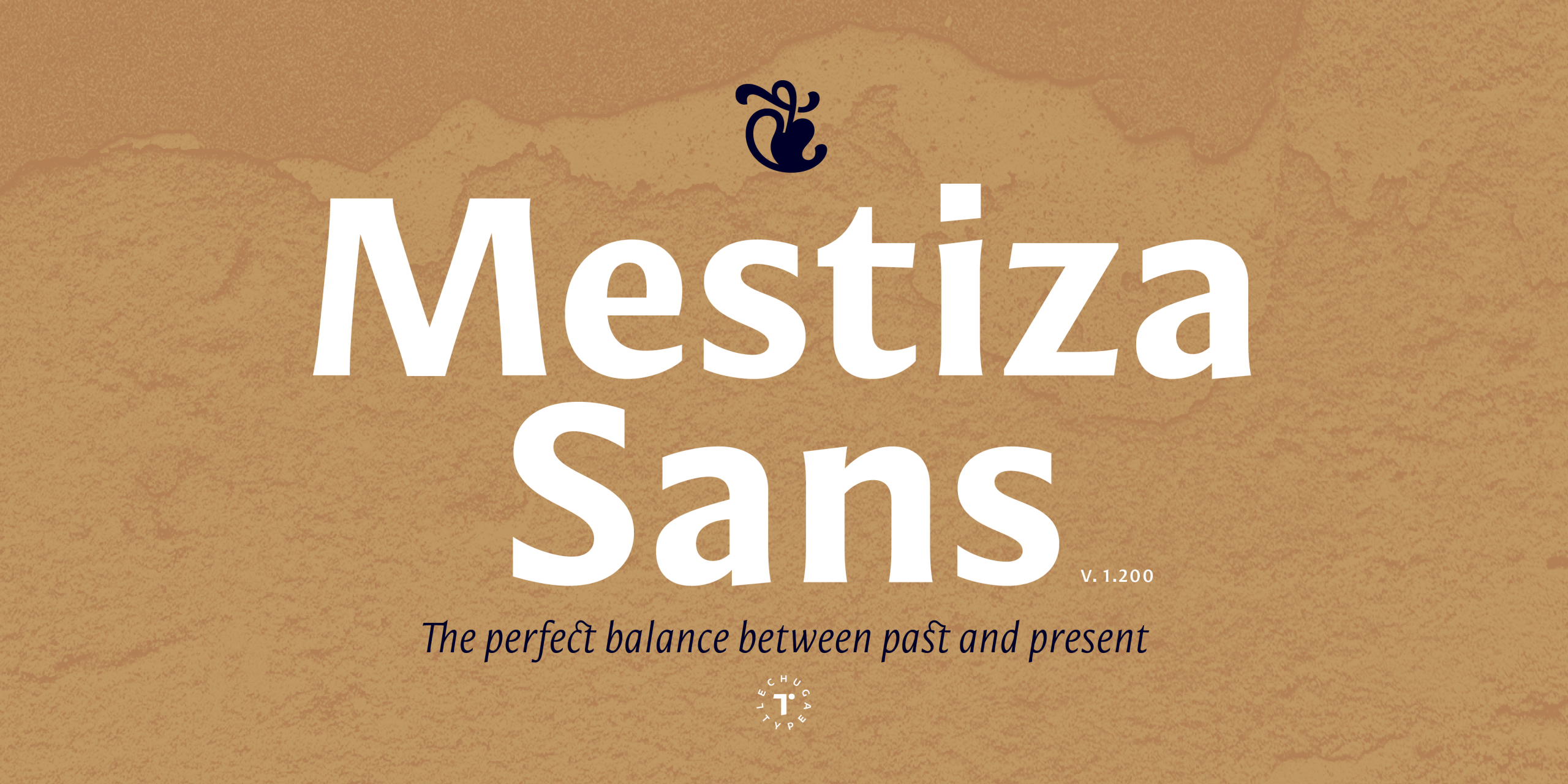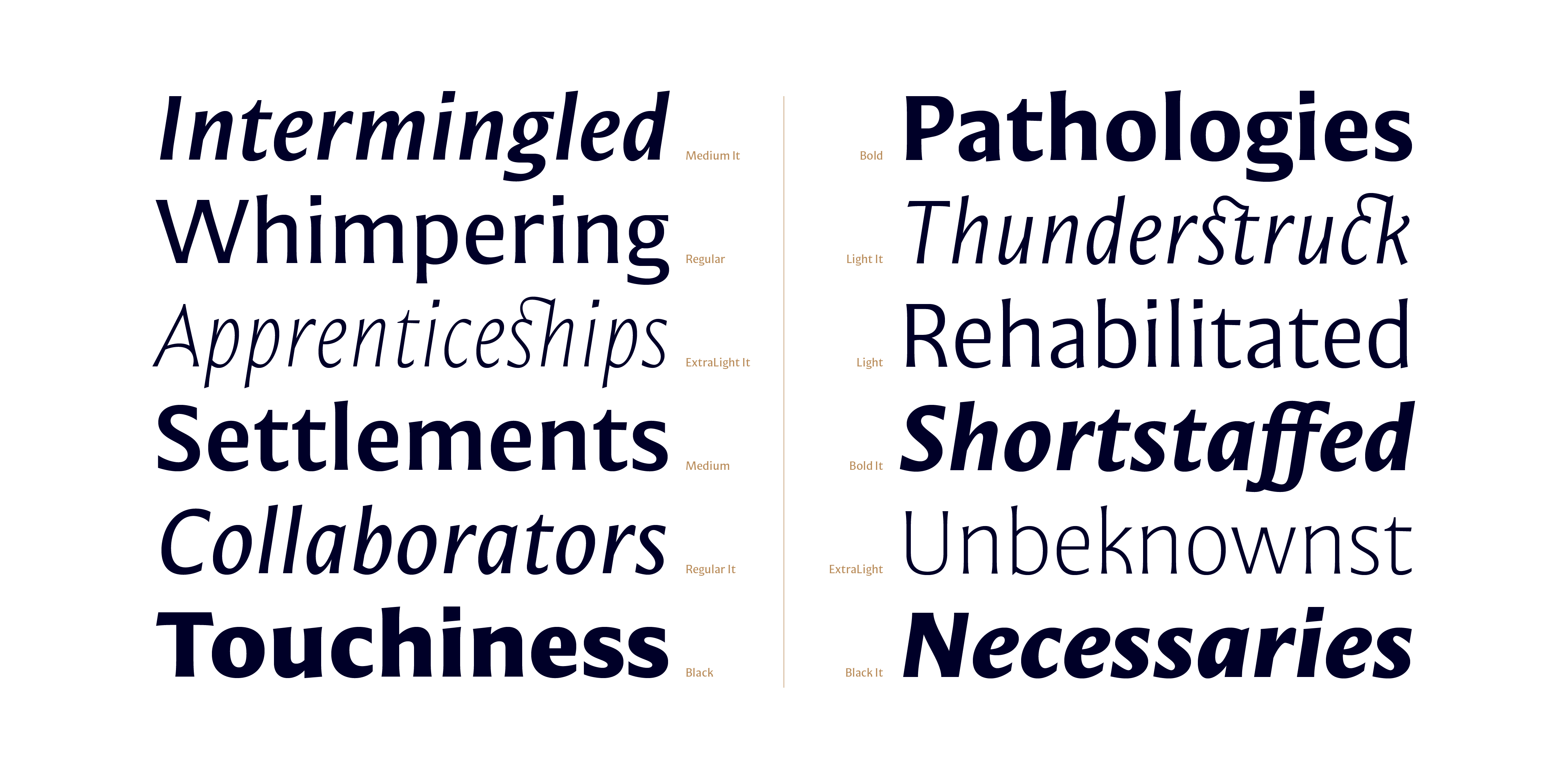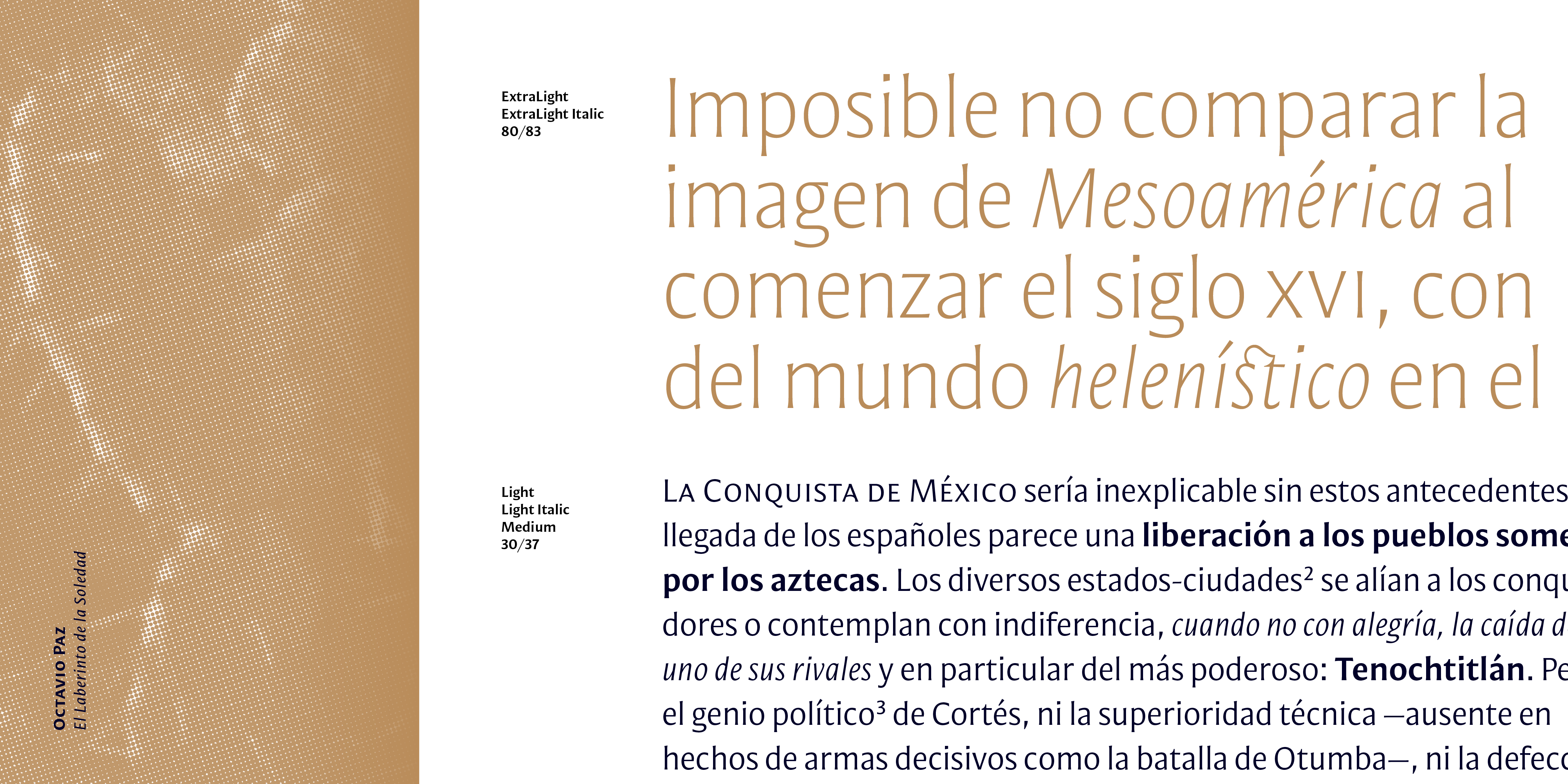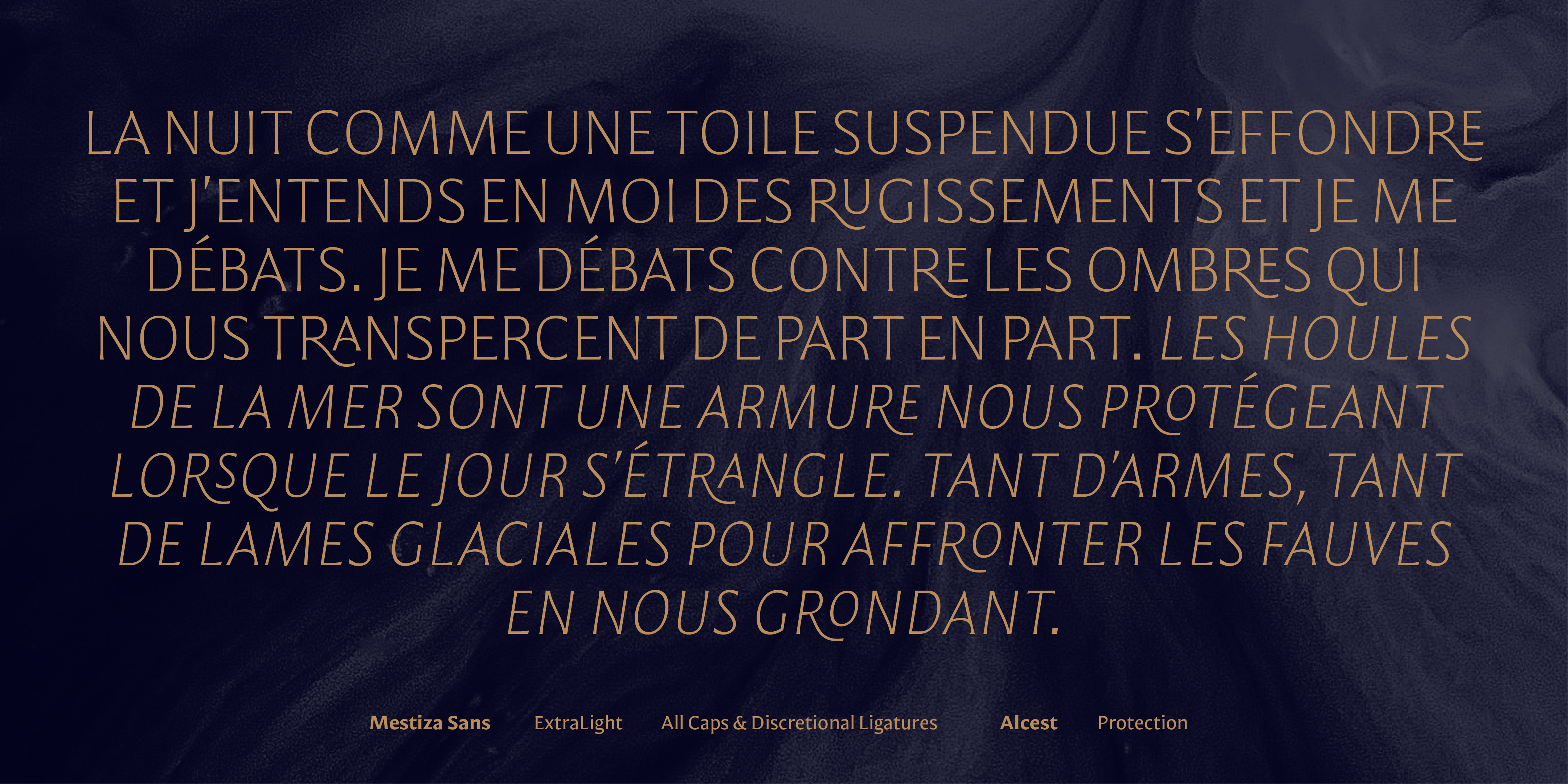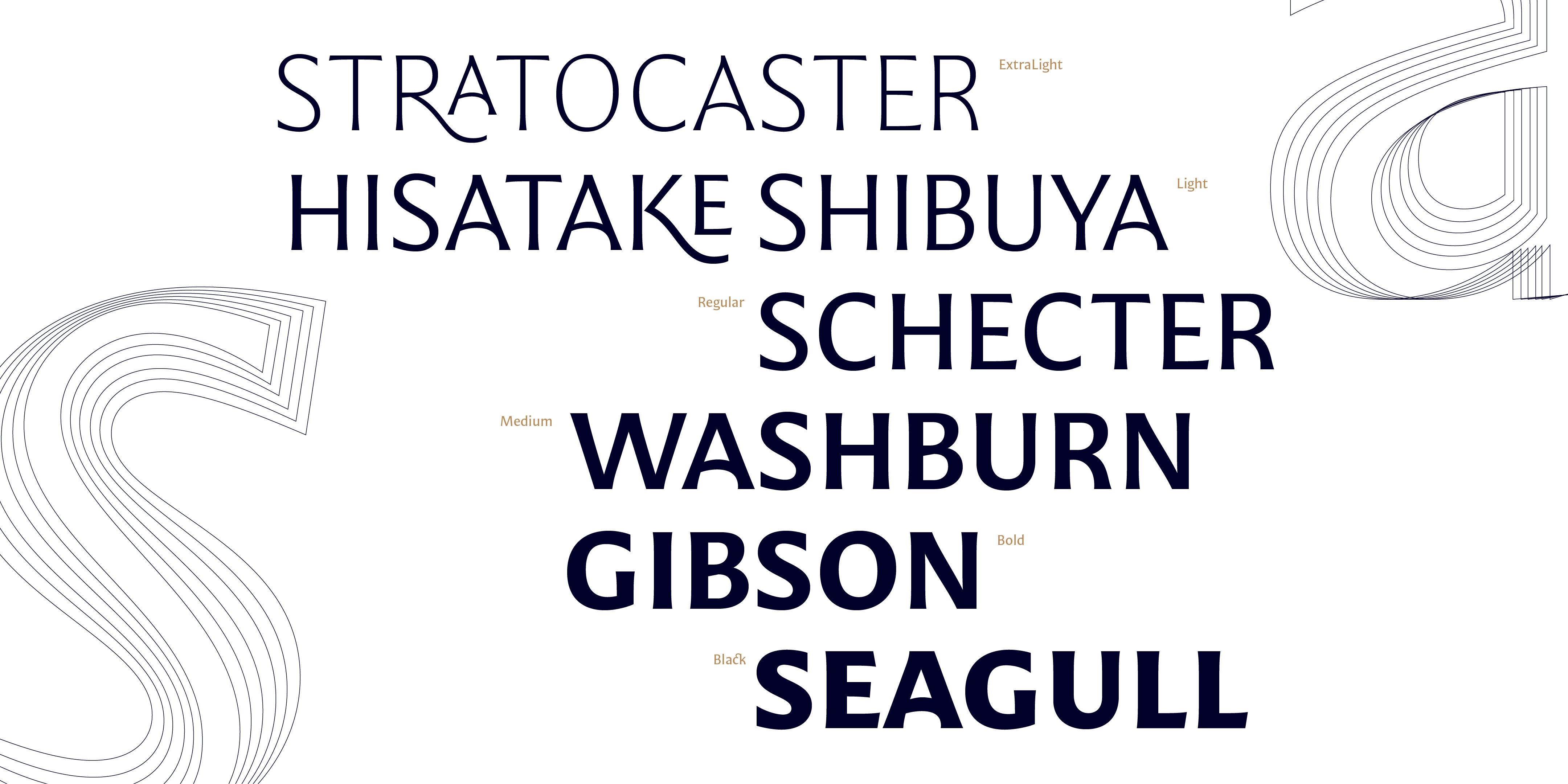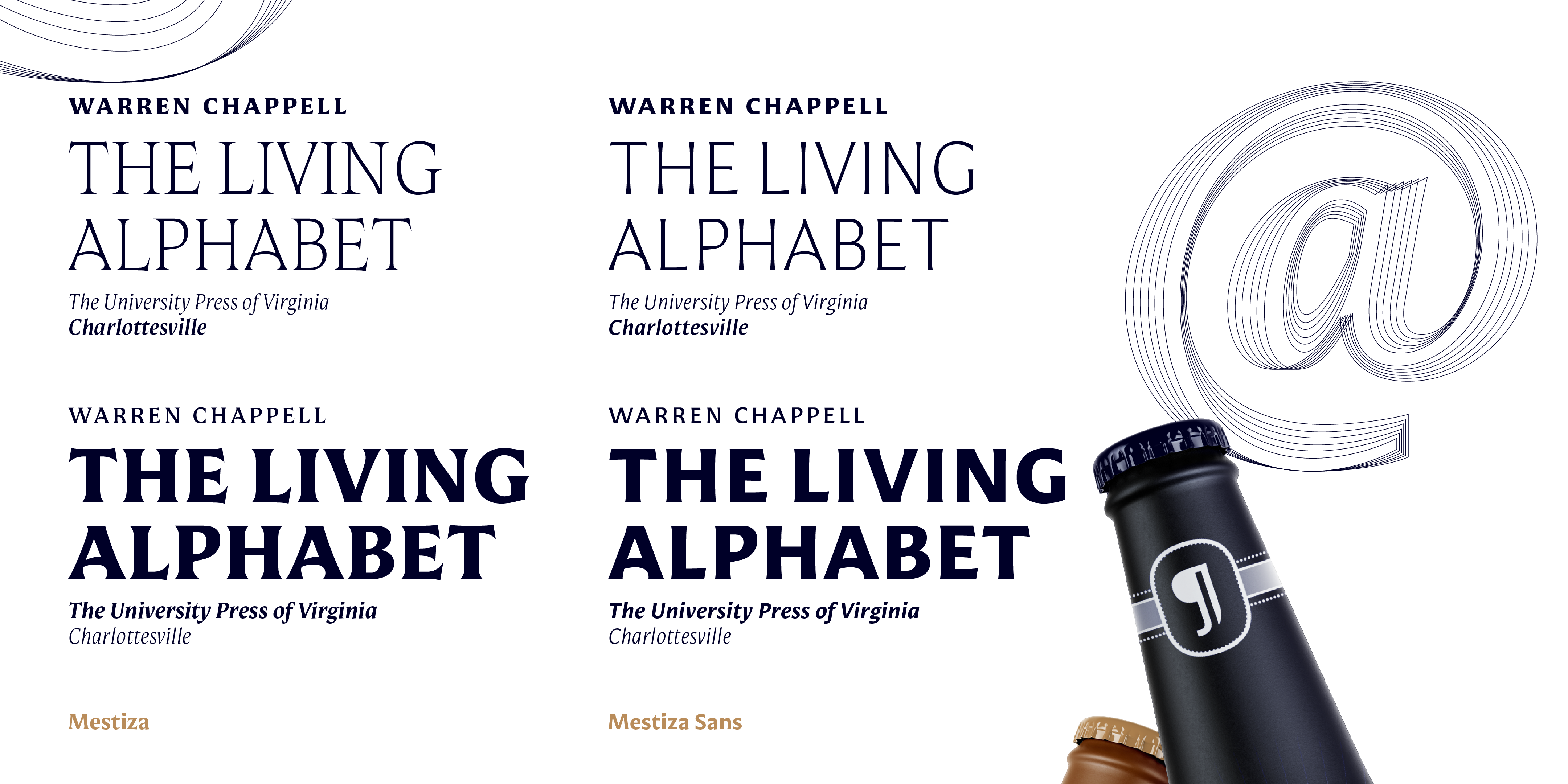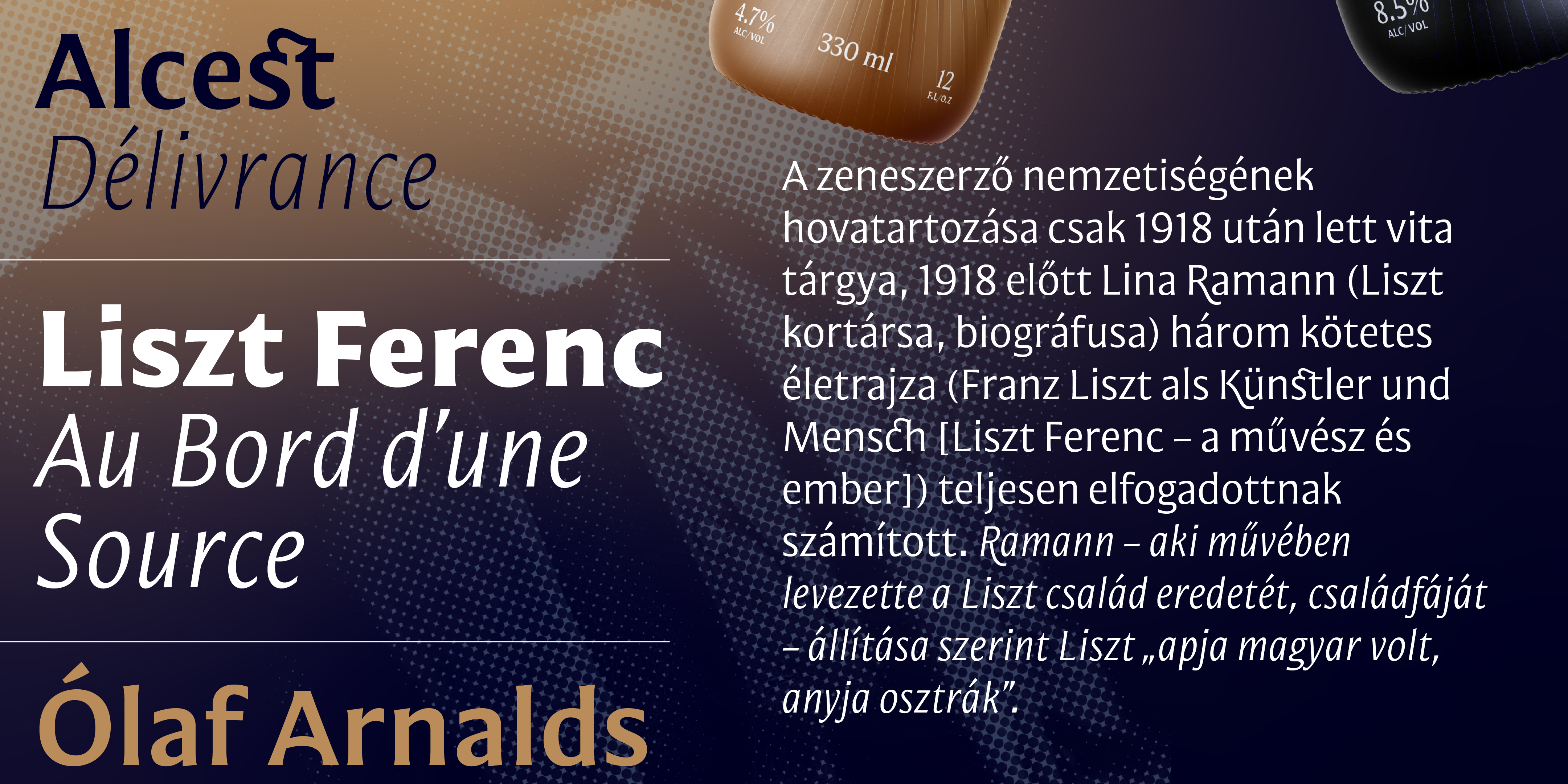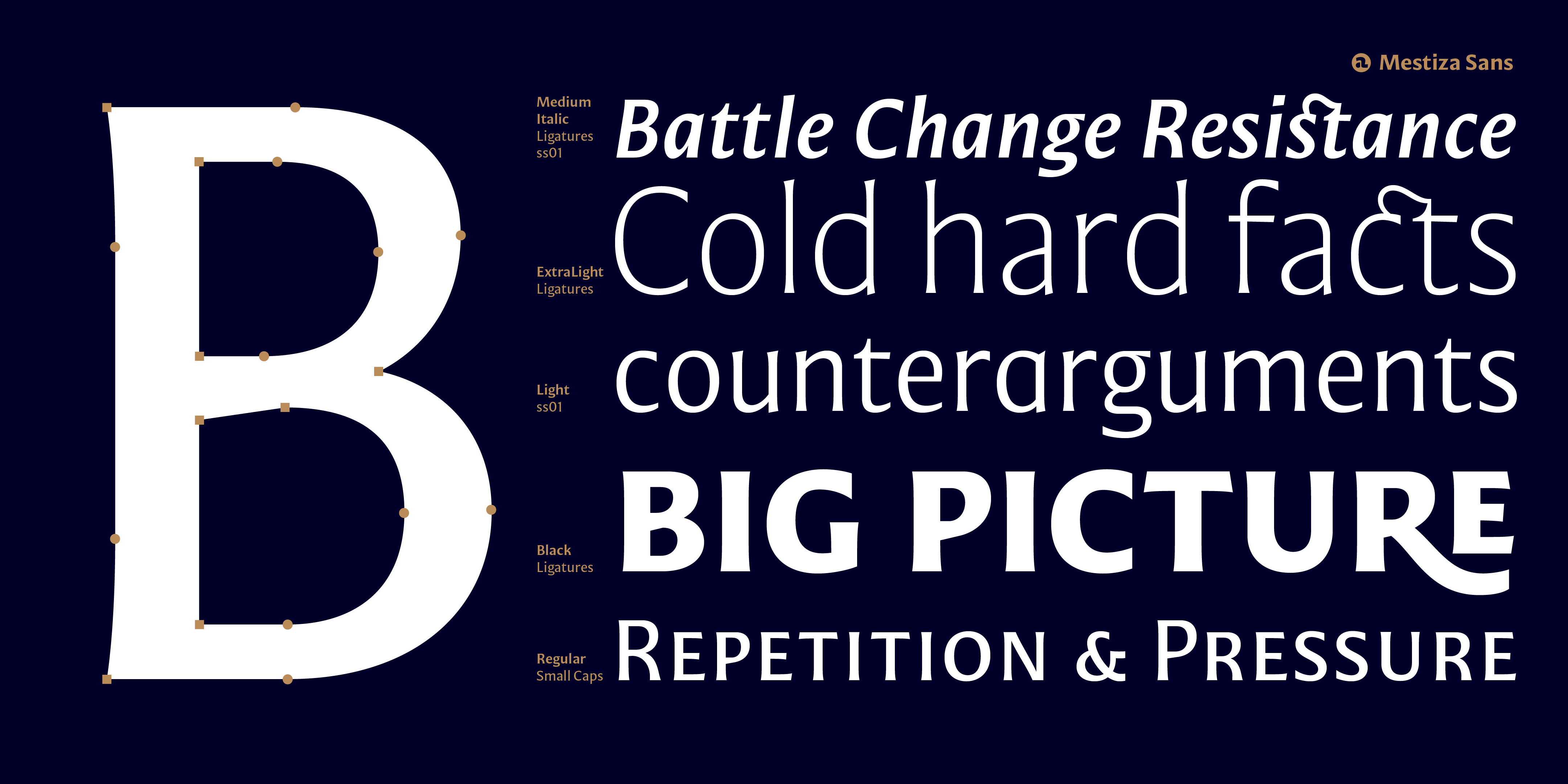
Mestiza Sans
The Contemporary Sans Serif of the Mestiza System
Mestiza Sans is the new family of the Mestiza system and the perfect complement to the Serif version, reinforcing and amplifying its possibilities of use and combination.
A Contemporary Complement to Mestiza
Mestiza Sans preserves the relics of the serifs discreetly and harmoniously, bringing the artisanal to the contemporary in a mixture that continues to evoke elegance and strength.
As part of the Mestiza system, it is designed to work alongside the Serif version and expand the possibilities for typographic combinations.
Designed by: Antonio Mejía Lechuga.
The Mestiza System, Expanded
Designed for Headlines, Branding & Editorial
Mestiza Sans — 12 variants, 700+ multilingual characters, six kinds of numerals, and a rich set of OpenType features. Mestiza Sans is ideal for headlines, branding, and editorial projects.
Its contemporary character and relationship with the Mestiza Serif family make it suitable for creating typographic contrast and cohesive combinations within the same system.
700+ Multilingual Characters
Mestiza Sans includes more than 700 multilingual characters, providing broad language support for international design projects.
OpenType Features & Six Kinds of Numerals
Mestiza Sans includes Small Caps, Ligatures, some Alternates, and Symbols.
Its numeral set includes six kinds of figures: Lining Figures, Oldstyle, Small Caps, Superiors, Inferiors, and Fractions.
Part of the Mestiza System
Mestiza Sans is part of the Mestiza system, designed as a complementary family to the Mestiza Serif version.
Together, the families bring the artisanal character of Mestiza into different typographic expressions while maintaining a shared spirit of elegance and strength.
Specifications
| Family Name | Mestiza Sans |
| Designed By | Antonio Mejía Lechuga |
| Category | Sans Serif |